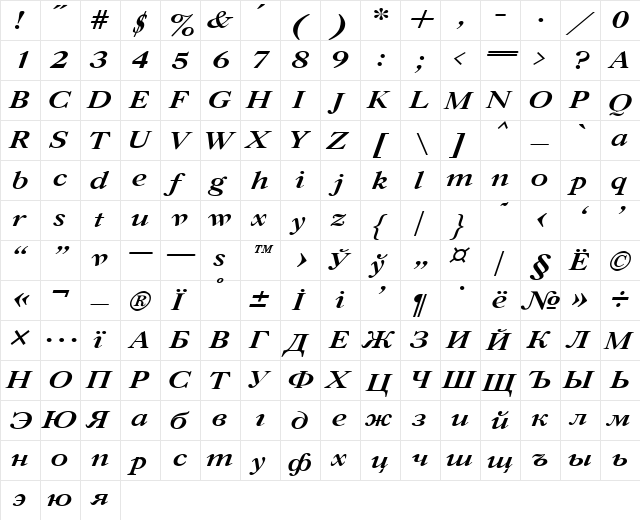
Caslon Bold Italic Font Preview
Design Context for Caslon Typeface
Caslon takes a measured approach to typography — its balanced proportions and neutral character make it a reliable workhorse for both digital and print work. The slanted form adds forward momentum and visual energy. The heavy weight commands attention and anchors typographic hierarchies.
Pro Tip: Try Caslon for annotation and caption copy alongside an upright companion — the contrast in angle creates a dynamic but ordered typographic system.